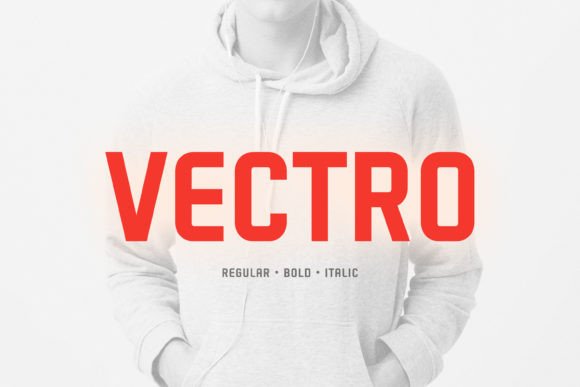
Introducing Vectro Font, the ultimate choice for all your typography needs! If you are on the lookout for the Best Font for Newspaper Ads, look no further. Created by variatype, this sans-serif font is a true masterpiece that effortlessly combines cuteness and beauty in one package.
With its clean and minimalistic lines, Vectro Font exudes a modern and elegant look that is sure to captivate your audience. Its sleek design adds a touch of sophistication to any project, making it perfect for both professional and personal use. Whether you're designing a newspaper ad, a website header, or a logo, this font is guaranteed to leave a lasting impression.
What sets Vectro Font apart is its playful and rounded edges, which infuse a sense of fun and whimsy into your designs. It brings a delightful charm to any text, making it ideal for projects that require a touch of creativity and personality. Your words will come alive with this font, leaving your readers enchanted and eager to explore more.
The versatility of Vectro Font knows no bounds. It effortlessly adapts to any design concept, adding a fresh and contemporary feel to your work. From fashion magazines to food blogs, from corporate branding to children's books, this font seamlessly fits into any project, elevating its overall aesthetic.
But Vectro Font is not just visually appealing; it is also a powerhouse of functionality. With its wide range of weights and styles, you have the freedom to experiment and create stunning combinations. Whether you want to emphasize headlines, highlight important information, or simply make a statement, this font provides the flexibility you need.